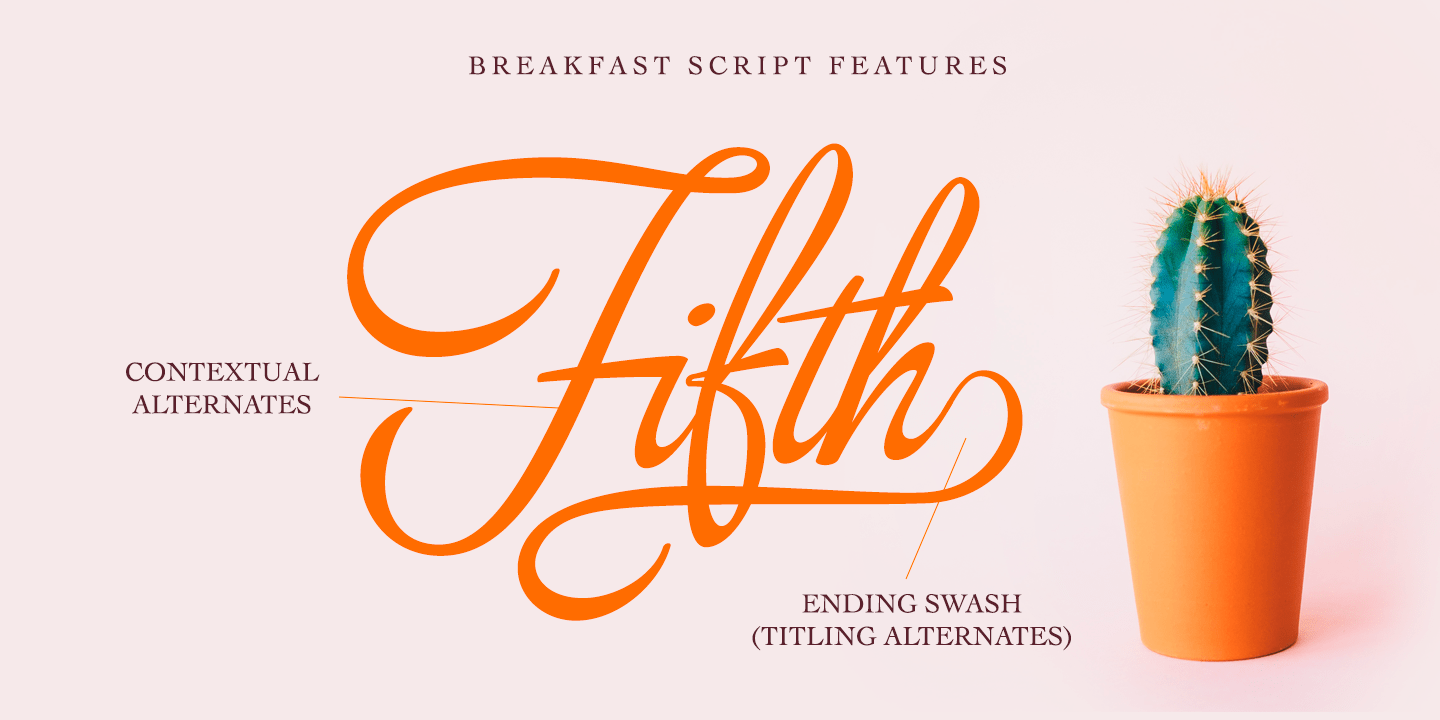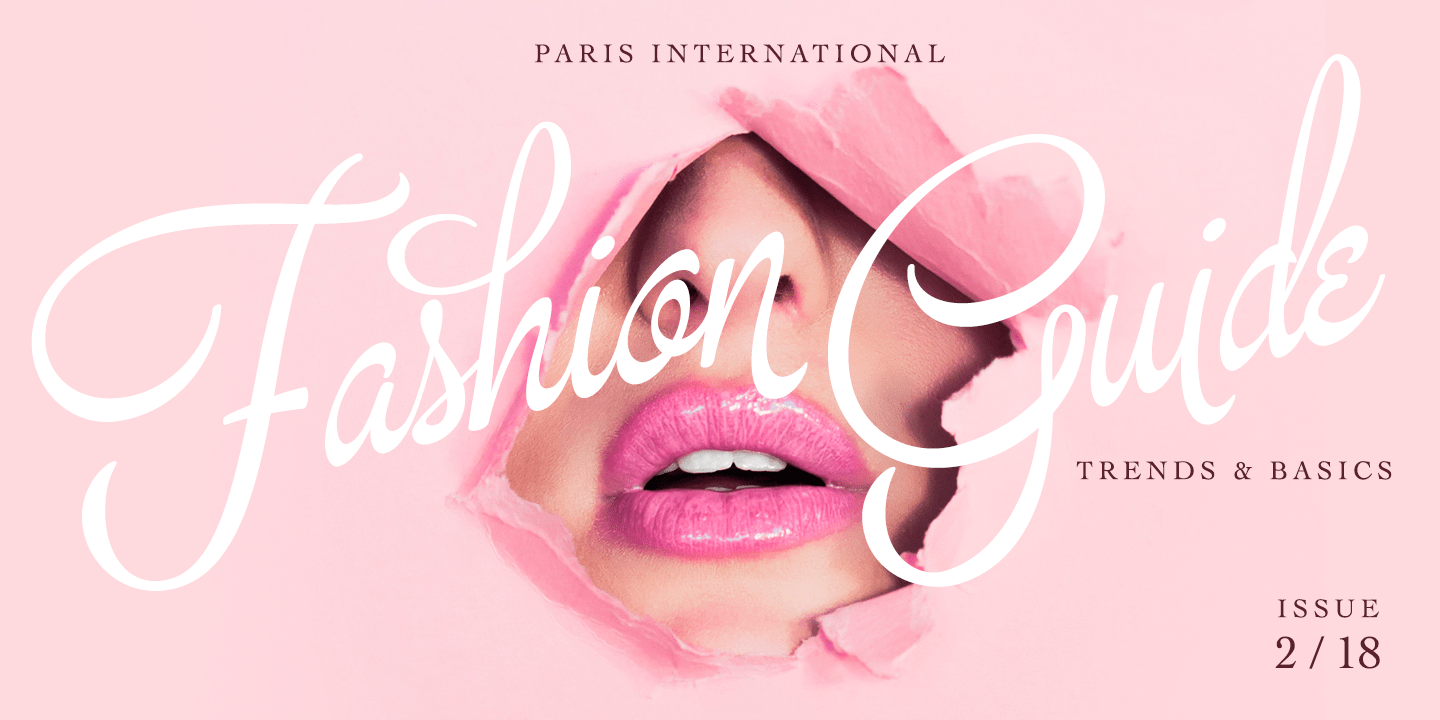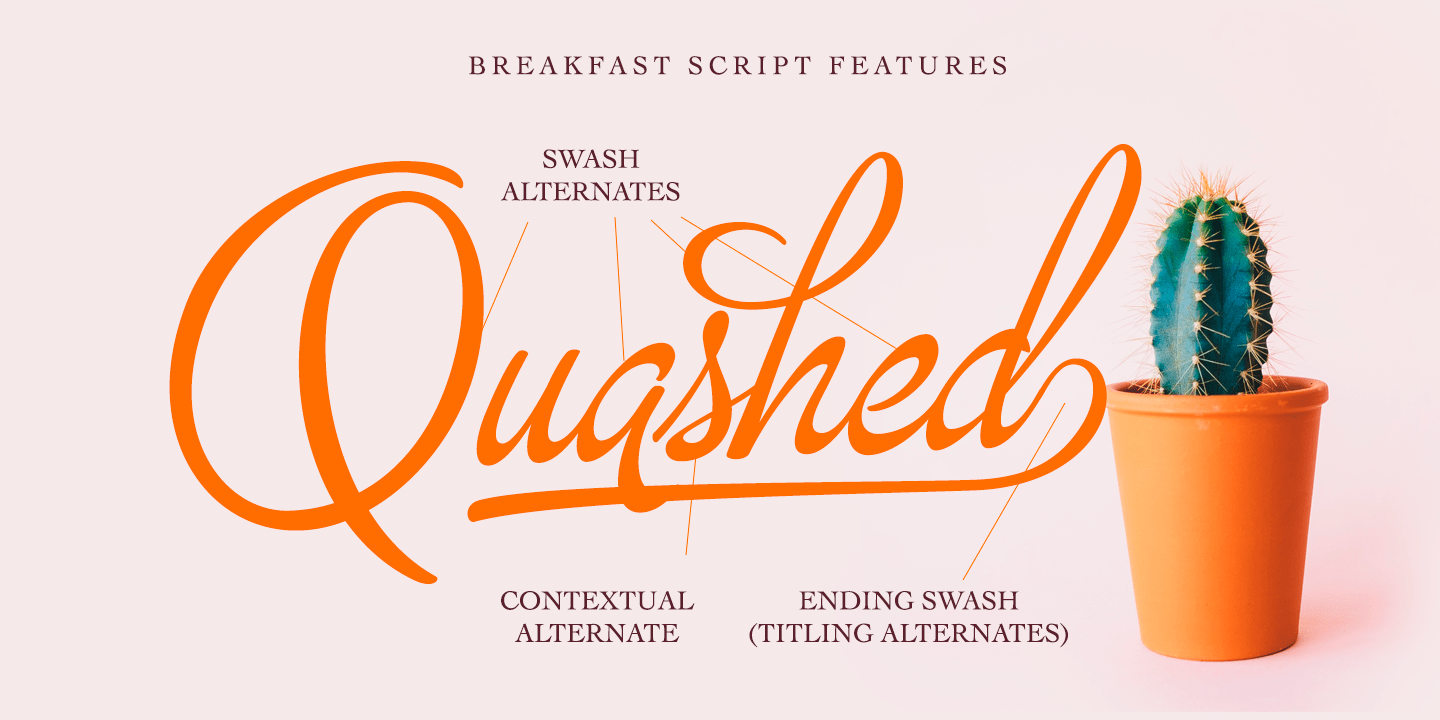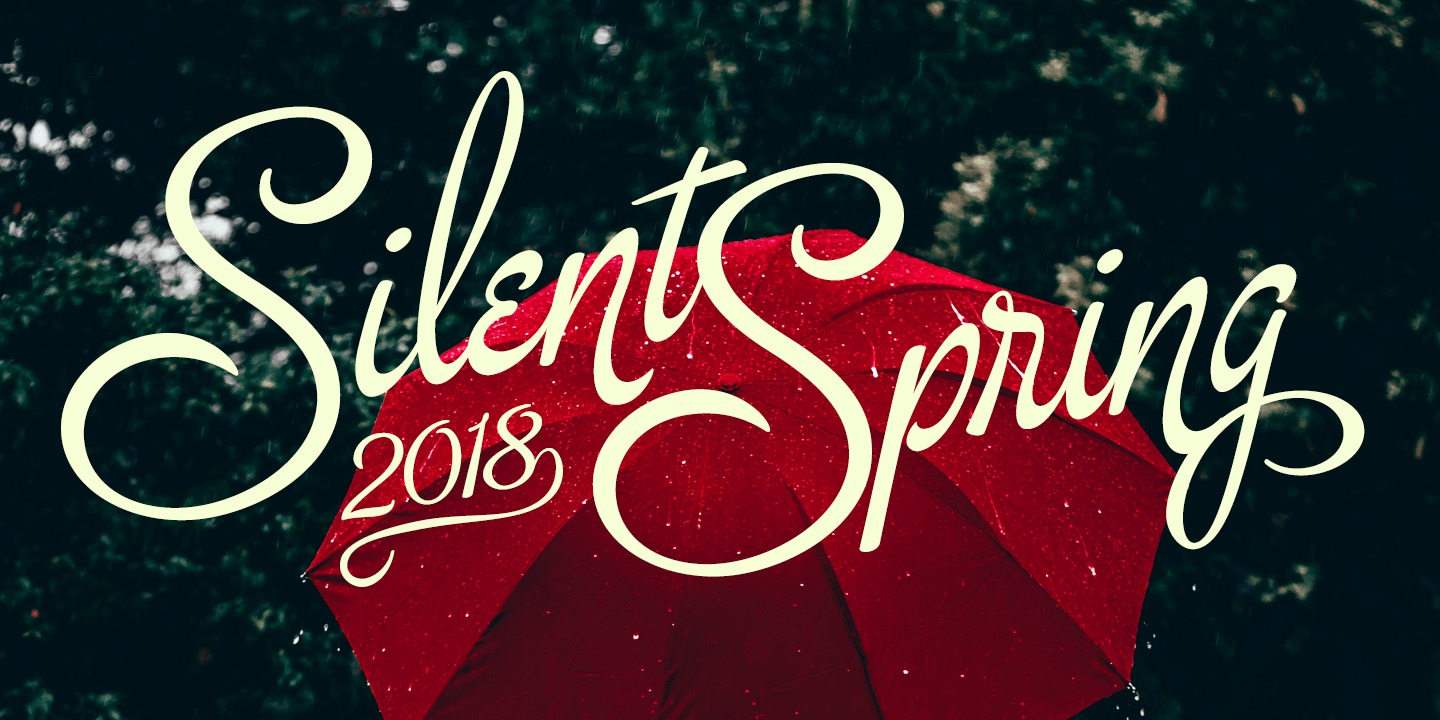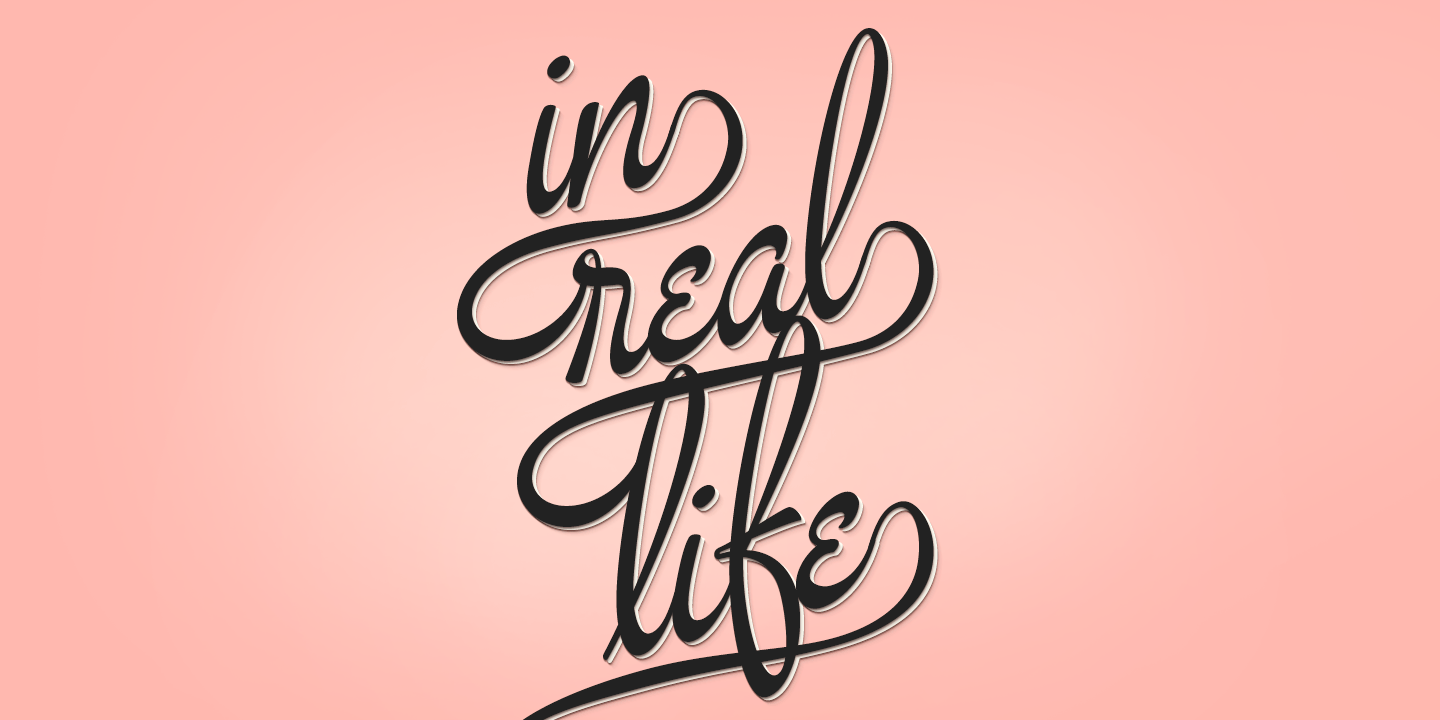
About Breakfast Script
Breakfast Script is an elegant connected script family of three weights. Breakfast Script is equipped with Contextual Alternates that helps to keep connections smooth. Every standard character also has Swash Alternate for more funky letters. In addition…